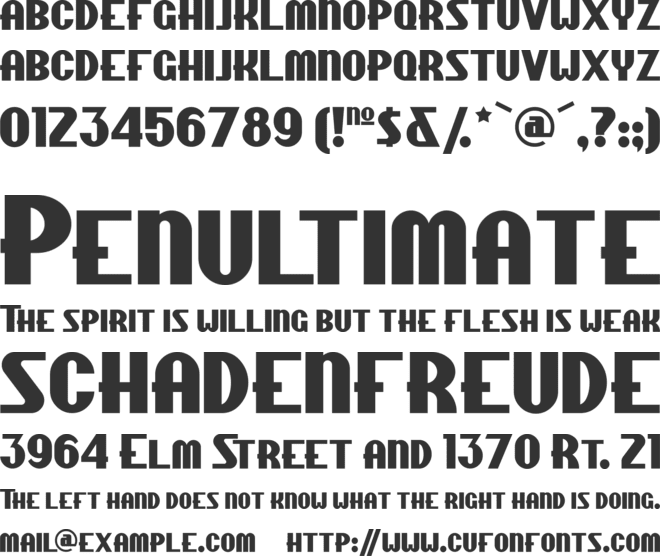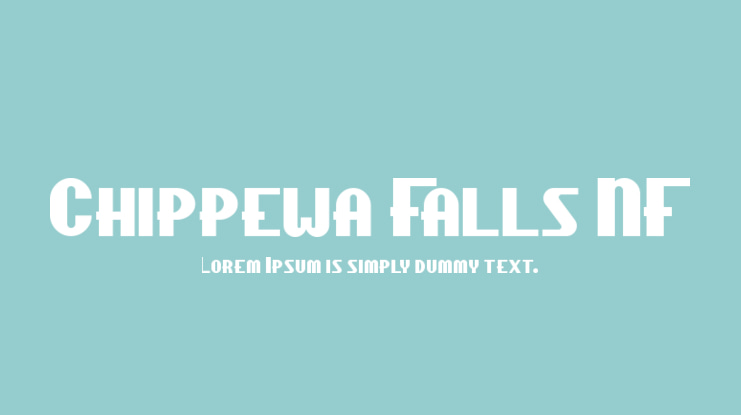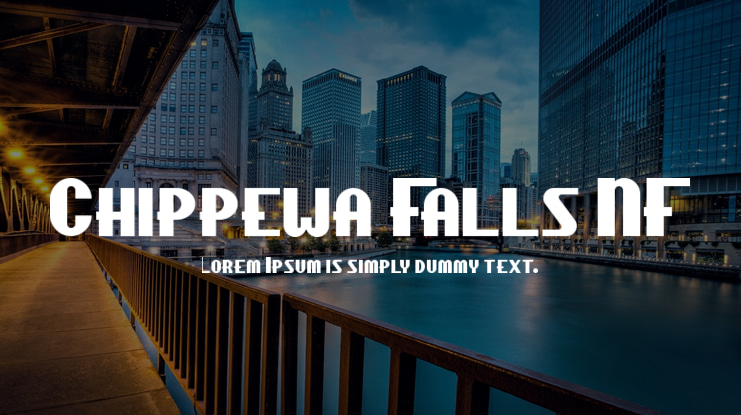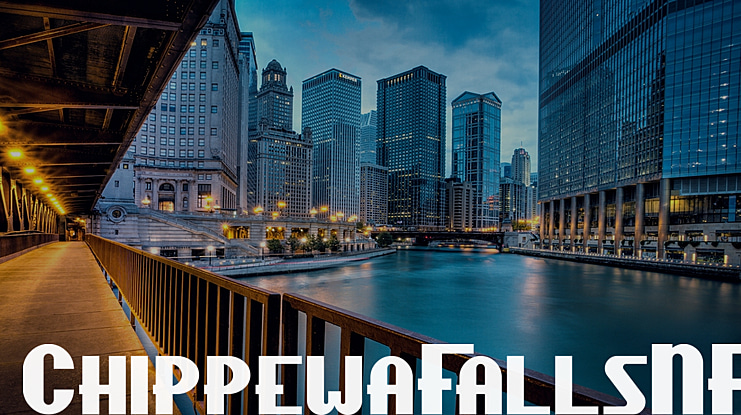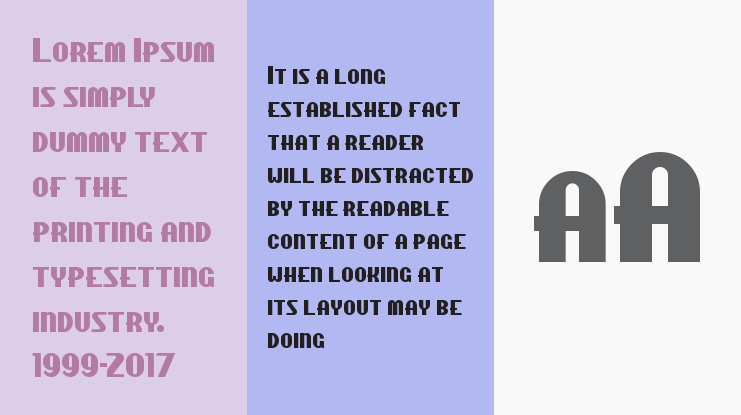
Chippewa Falls NF Font
Nick Curtis
Reference material for this font was provided by Mike Beckemeier, and was originally lettering used by the Chicago, Milwaukee, St. Paul and Pacific Railroad, otherwise known as the “Milwaukee Road,” on much of their equipment and advertising literature in the late 30s. Mike suspects that Karl F. Nystrom, the railroad’s mechanical engineer, may have introduced the font to the railroad.